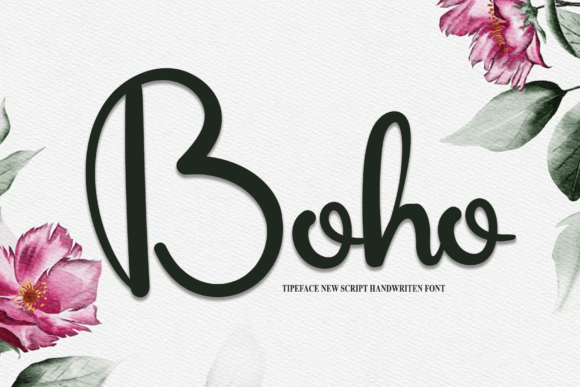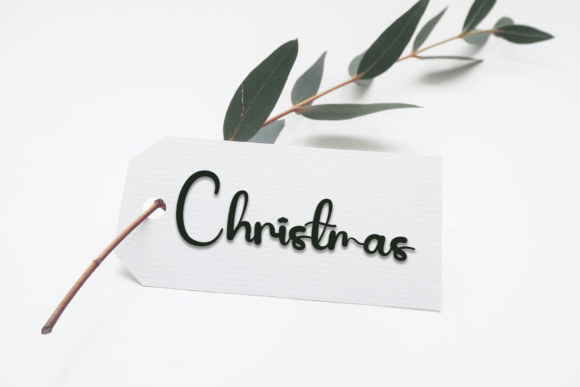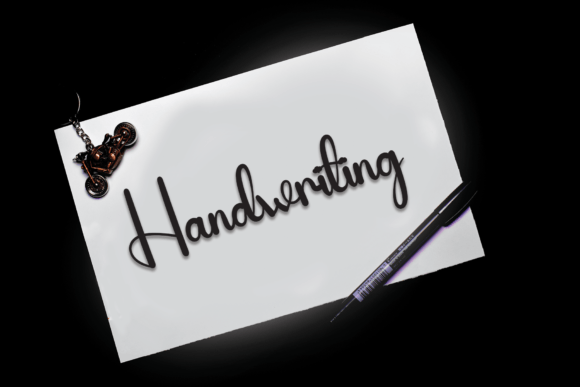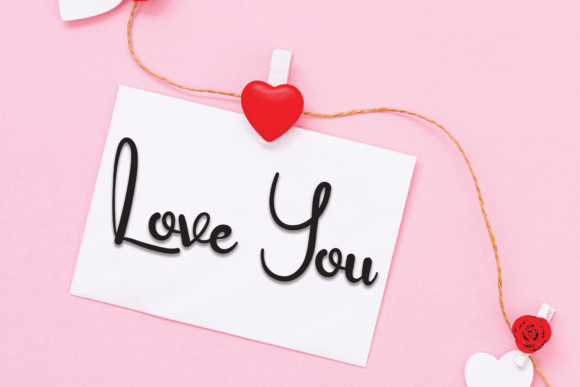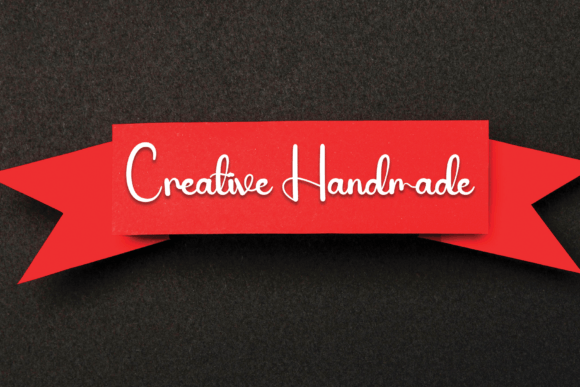
About Boho Font
Boho Font is a warm and cheerful handwritten font that adds a personal feel to your projects. Whether you’re designing greeting cards, digital invitations, or crafting labels, this font offers a touch of charm that’s hard to resist.
Perfect for Every Creative Project
Thanks to its smooth flow and clean strokes, Boho Font ensures excellent readability across both digital and print designs. For example, you can use it in social media graphics, packaging, or even personalized apparel. As a result, it brings both character and clarity to your work.
Easy to Use and Versatile
In addition, BohoFont comes with a full set of characters and supports most design platforms like Canva, Cricut, or Photoshop. This makes it ideal for everything from wedding invites to fun poster designs. Moreover, its friendly curves and consistent weight let you pair it easily with other typefaces.
Add Joy and Personality
Boho Font doesn’t just work—it speaks. Use it to create warm, engaging messages that reflect your unique style. Whether you’re working on a personal blog header or a commercial branding project, this font adapts effortlessly.